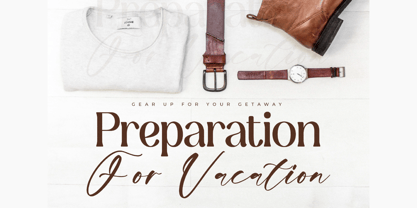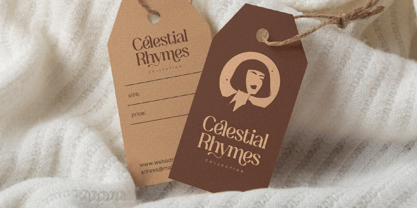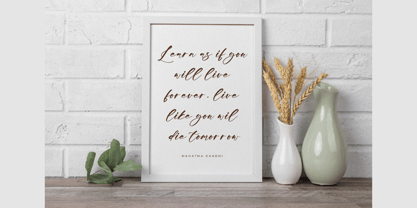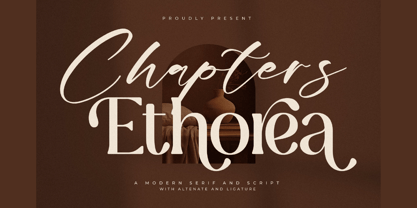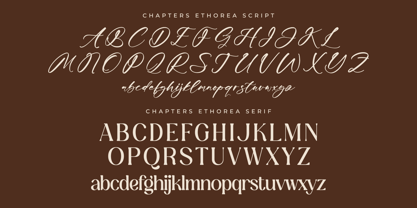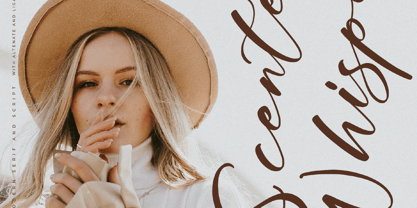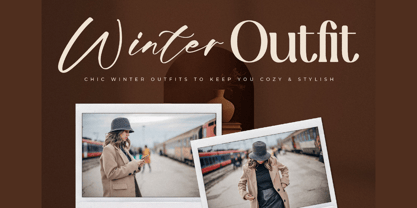
Chapters Ethorea
The Chapters Ethorea Font Family was designed by Heru Utama Putra and published by Letterena Studios. Chapters Ethorea contains 2 styles and family package options.
Proudly present Chapters Ethorea Font Duo.
A serif and script typeface that has its own unique style & modern look.
This typeface is perfect for an elegant & luxury logo, book or movie title design, fashion brand, magazine, clothes, lettering, quotes, and so much more.